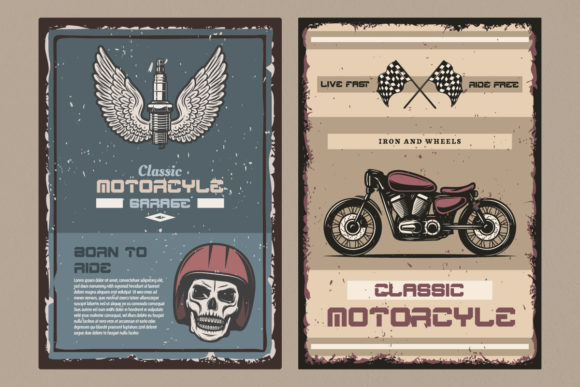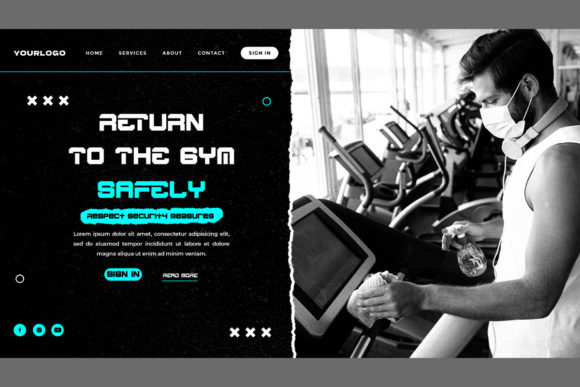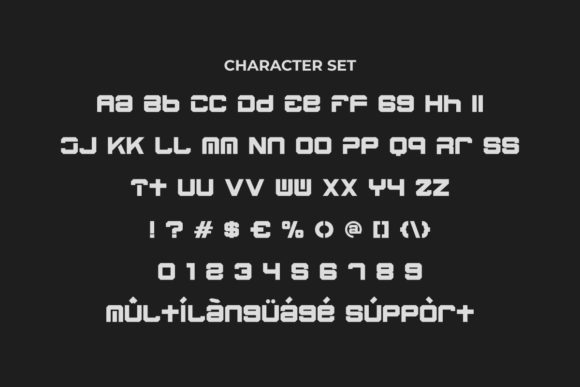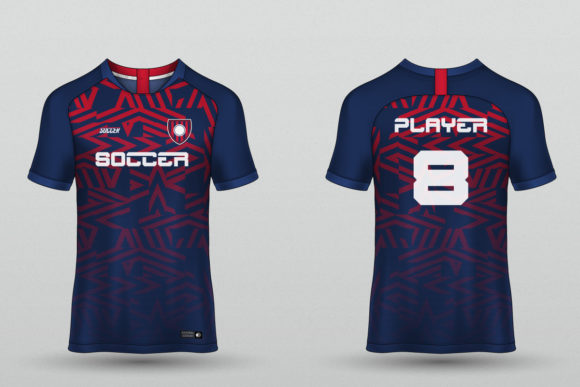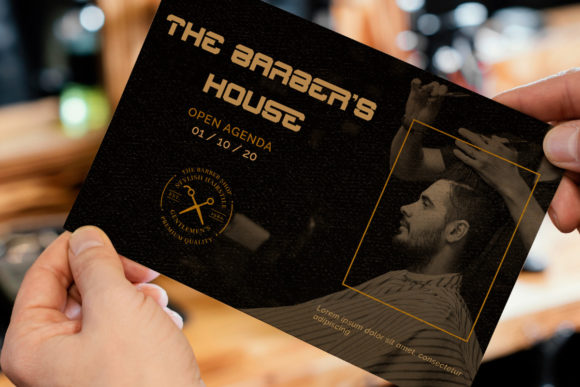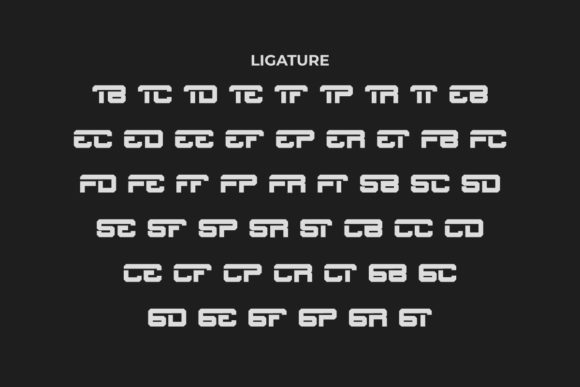
Unleash Your Creativity with Blacked Font: A Bold and Modern Display Font
In the world of design, typography plays a crucial role in conveying messages, expressing emotions, and creating visual identities. When it comes to making a statement, a bold and modern font can make all the difference. This is where Blacked Font comes into play – a stunning display font that is perfect for adding a unique and assertive touch to your designs. In this article, we’ll dive into the features, benefits, and uses of Blacked Font, and explore how it can elevate your design game.
What is Blacked Font?
Blacked Font is a bold and modern looking display font that is designed to make a statement. Its sleek and edgy design makes it perfect for creating visually striking designs that grab attention. With its clean lines, sharp edges, and bold strokes, Blacked Font exudes confidence and sophistication, making it ideal for designs that require a strong and assertive presence.
Key Features of Blacked Font
So, what makes Blacked Font stand out from the rest? Here are some of its key features:
- Bold and Modern Design: Blacked Font boasts a bold and modern design that is perfect for creating eye-catching headlines, titles, and captions.
- Clean Lines and Sharp Edges: The font’s clean lines and sharp edges give it a sleek and edgy look that adds a touch of sophistication to any design.
- Highly Legible: Despite its bold design, Blacked Font is highly legible, making it perfect for use in a variety of design applications, from web designs to print materials.
- Versatile: Blacked Font is a versatile font that can be used in a wide range of design applications, from business cards to billboards.
Uses of Blacked Font
So, how can you use Blacked Font in your designs? Here are some ideas to get you started:
- Web Designs: Use Blacked Font to create bold and eye-catching headlines, titles, and captions for your website.
- Business Cards: Add a touch of sophistication to your business cards with Blacked Font, perfect for creating a strong and assertive visual identity.
- Print Materials: Use Blacked Font in your print materials, such as brochures, flyers, and posters, to create visually striking designs that grab attention.
- Logos and Branding: Blacked Font is perfect for creating bold and memorable logos and branding materials that make a statement.
Benefits of Using Blacked Font
So, why should you choose Blacked Font for your designs? Here are some benefits of using this amazing font:
- Unique and Assertive: Blacked Font adds a unique and assertive touch to your designs, setting them apart from the rest.
- Highly Versatile: The font’s versatility makes it perfect for use in a wide range of design applications.
- Easy to Read: Despite its bold design, Blacked Font is highly legible, making it easy to read and understand.
- Time-Saving: With Blacked Font, you can create stunning designs in no time, saving you time and effort.
In conclusion, Blacked Font is a bold and modern display font that is perfect for adding a unique and assertive touch to your designs. With its sleek and edgy design, clean lines, and sharp edges, Blacked Font is ideal for creating visually striking designs that grab attention. Whether you’re a designer, craft, or simply someone who loves typography, Blacked Font is a must-have font that can elevate your design game and take your creativity to the next level.